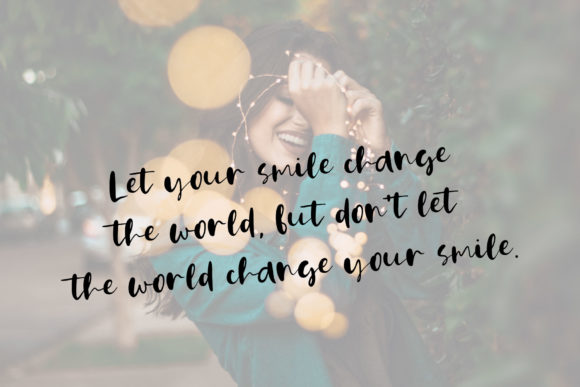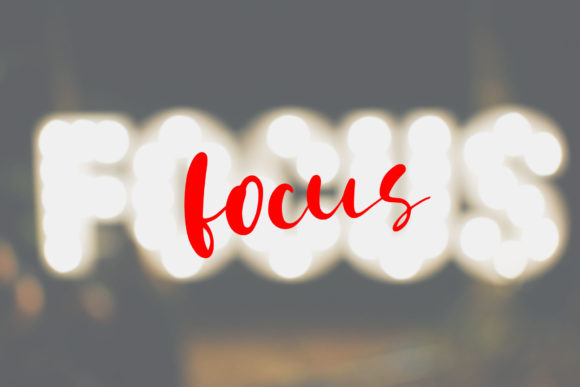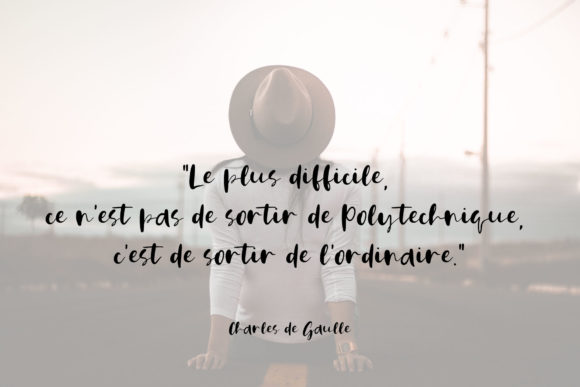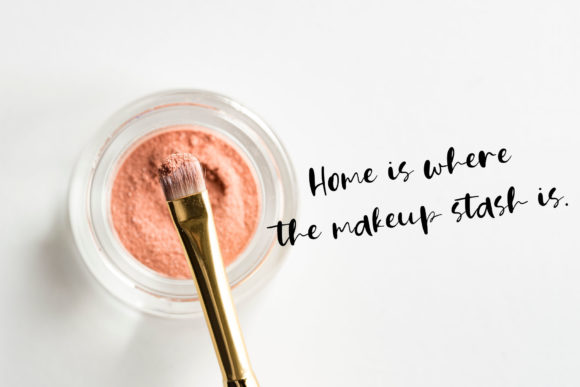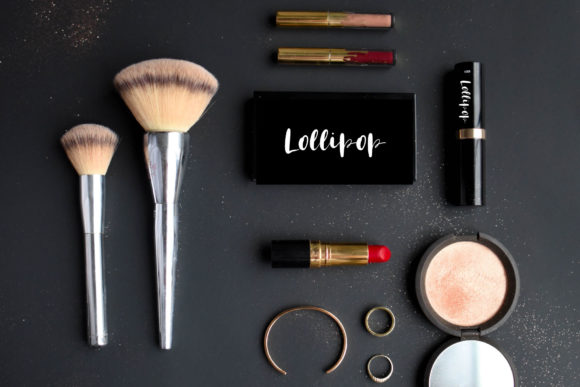
Lollipop Font
About Lollipop Font
Lollipop is a chic upscale script font.
Every single letter of this font has been carefully created and is perfectly suited for every project. It has a romantic touch, making it a great font for invites, quotes, blog posts and much more.